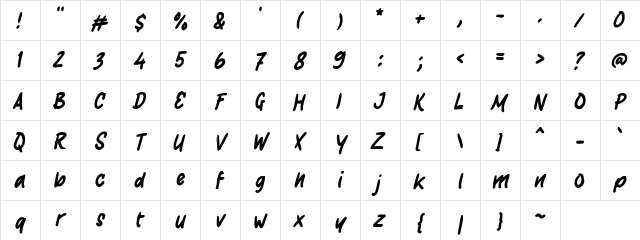
g Gradak Regular Free Font
g Gradak Regular
Designer: Wahyu Eka Prasetya
Design Context for g Gradak
g Gradak is a composed and adaptable typeface that performs quietly and consistently across a wide range of design contexts.